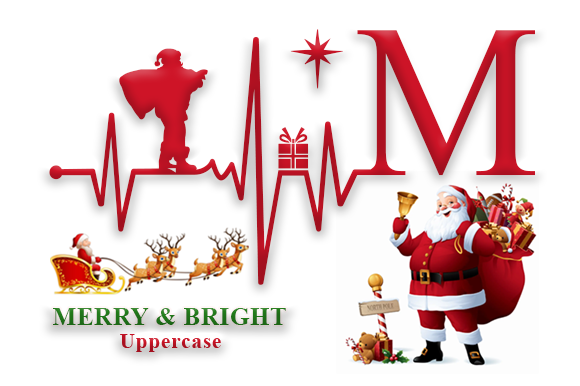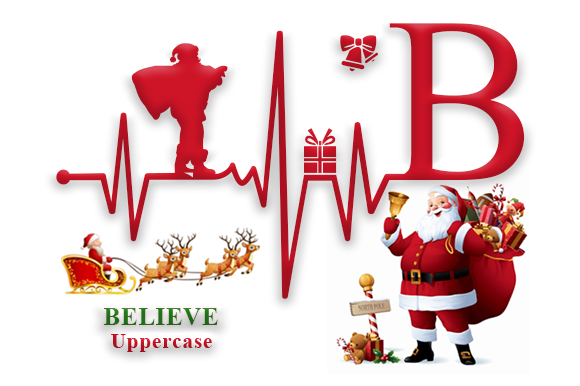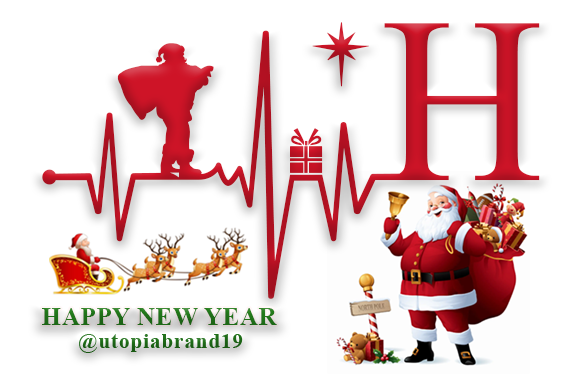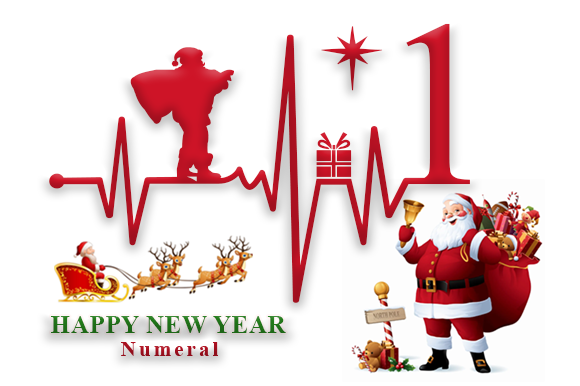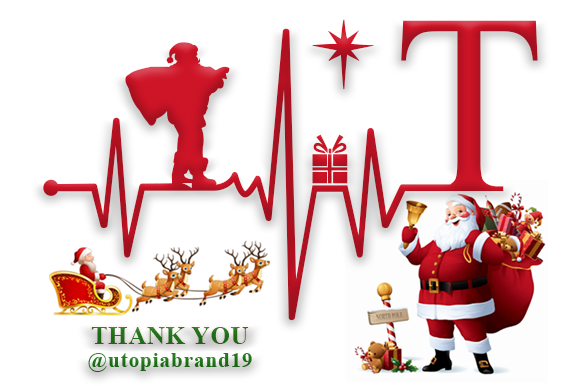
Introduction to Monogram Heartbeat Santa Font
Monogram Heartbeat Santa is a highly detailed, unique and interestingly designed decorative font.
Whether you use it for cartoon related designs, children games or just any creation that requires a lovely touch, this font will be an amazing choice .
Key Features of Monogram Heartbeat Santa Font
Why Choose Monogram Heartbeat Santa Font?
Monogram Heartbeat Santa Font offers exceptional quality and versatility, making it a valuable addition to your design toolkit. Whether you’re creating for personal projects or commercial use, Monogram Heartbeat Santa Font delivers professional results.